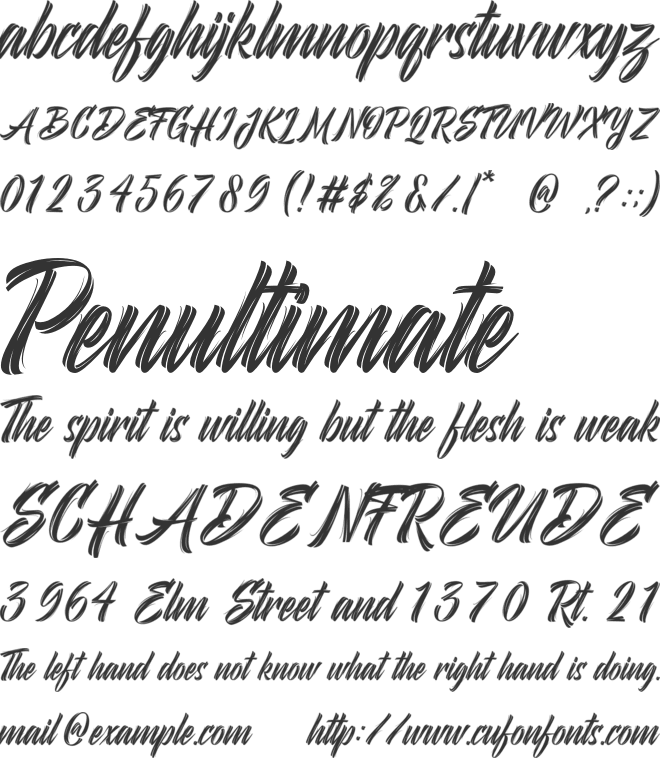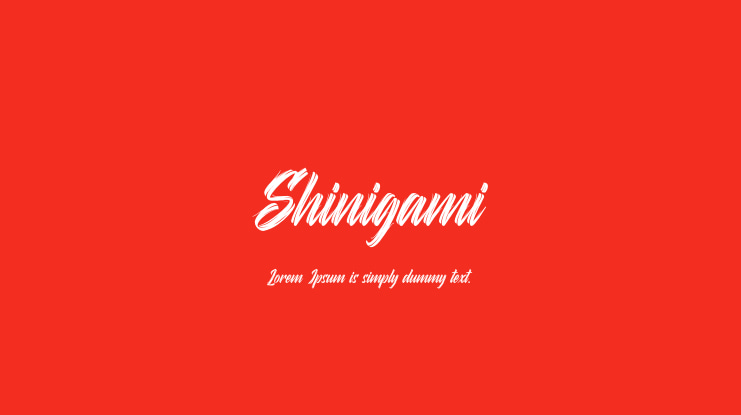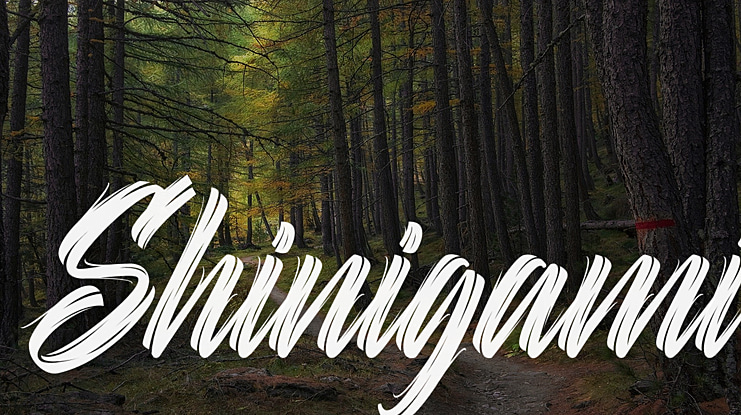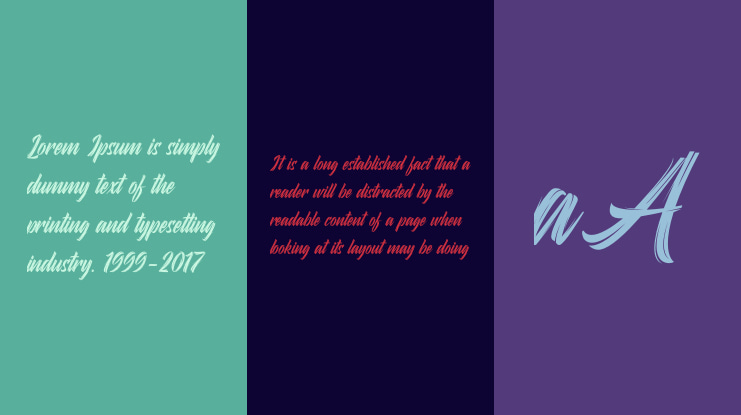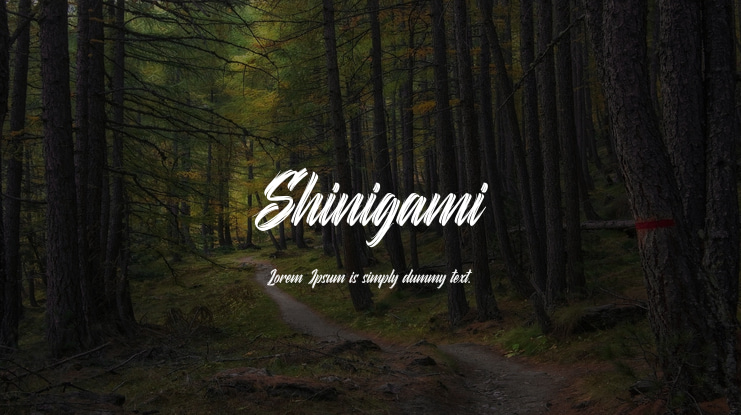
Shinigami Font
Shinigami is modern brush script font. It has a classy, elegant and modern look that can be used for logos, branding, invitations, stationery, wedding designs, social media posts, and much more!
Shinigami Features :
- Ligature
- Stylistic Alternates
- Swash
- PUA encoded which means you can access all glyphs
- Multilingual Support